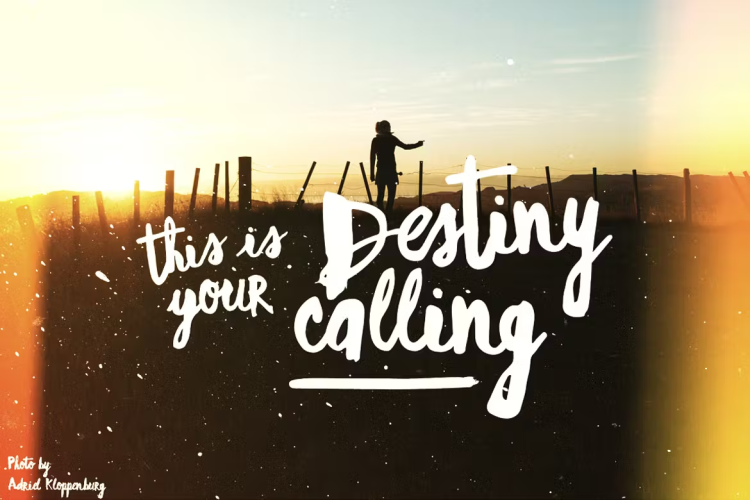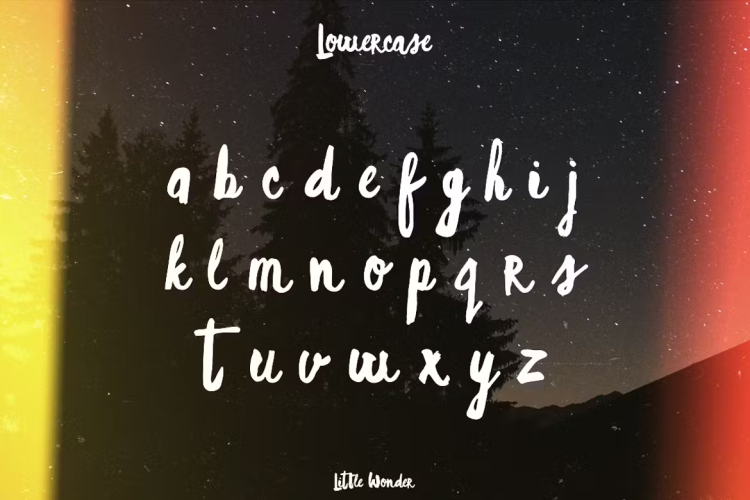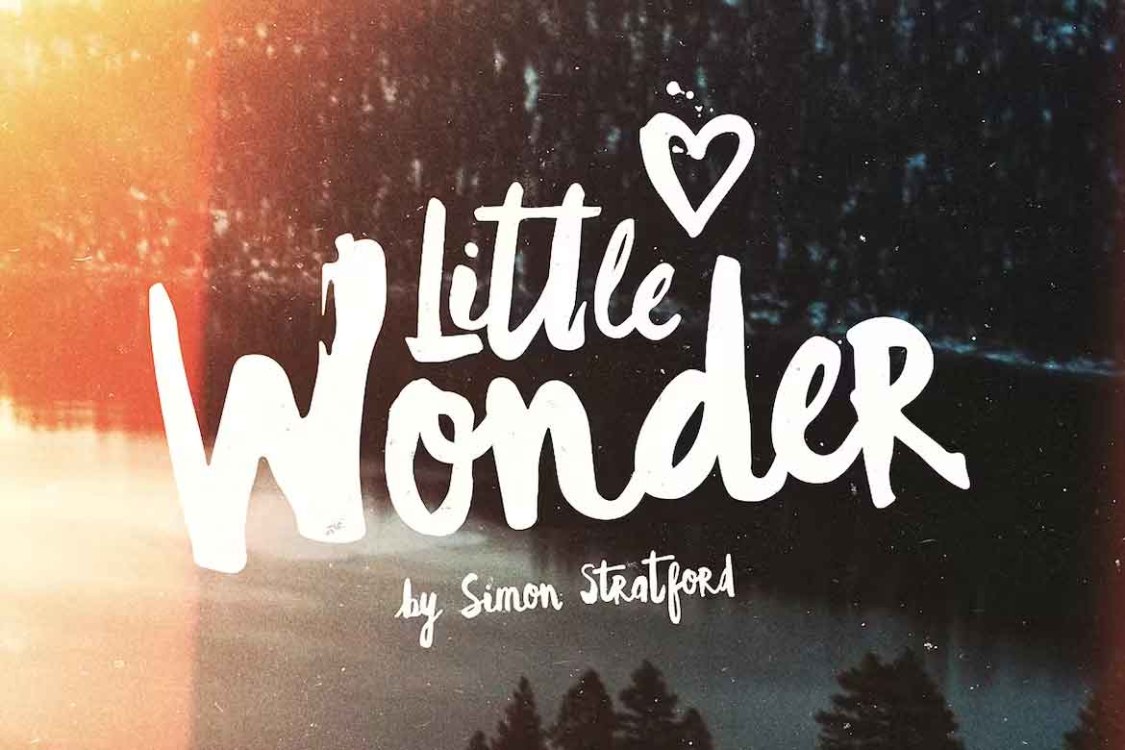
Little Wonder Font
Little wonder is handpainted typeface. Made with a single watercolor brush and painstakingly digitized into a typeface. It’s a script font, but it’s bold enough to be us…
Little wonder is handpainted typeface. Made with a single watercolor brush and painstakingly digitized into a typeface.
It’s a script font, but it’s bold enough to be used as a display typeface. It’s a bit chaotic and kooky but I like it. It has one style and a load of alternative letters, initial letterforms, and a few terminal forms.
If it was a celebrity it would be more Bill Murray than Kanye West.
It looks grand over photos but could be used for headlines, invitations, posters and branding work or anything where you want that hand made look and feel.
Where Little Wonder Font works best
A short phrase in Little Wonder Font carries warmth that a typeset sans cannot fake; keep the rest of the card plain.
Chalkboard-style headings in Little Wonder Font make a menu feel hand-made. Keep the dish descriptions in a simple face so prices stay readable.
One line of Little Wonder Font over a photo is enough; the script carries the tone and the caption does the work.
What kind of work does Little Wonder Font suit?
It sits in the Script And Handwritten group and reads as bold, branding, display, handwritten. That makes it a candidate wherever those qualities help: headings, packaging, social graphics and brand work. Set it at the size you plan to use before deciding.